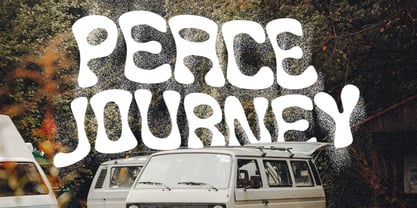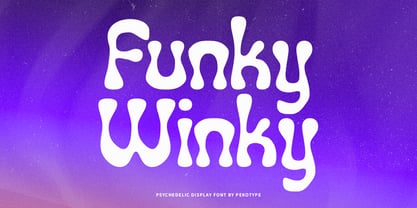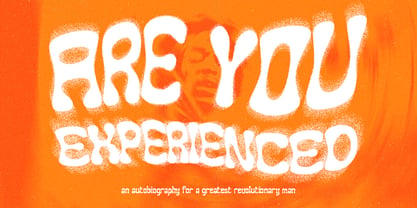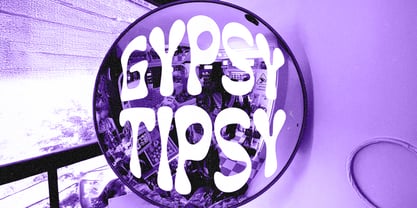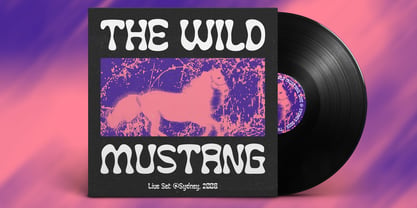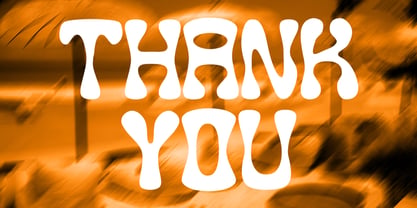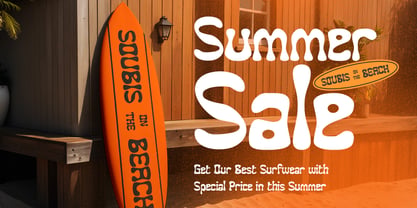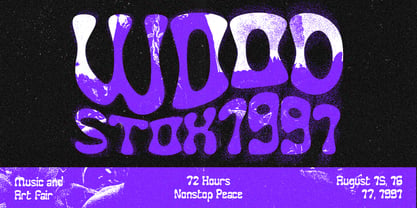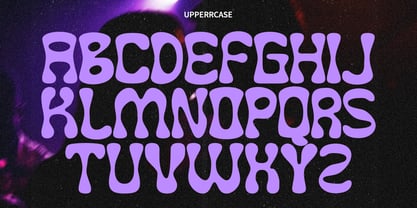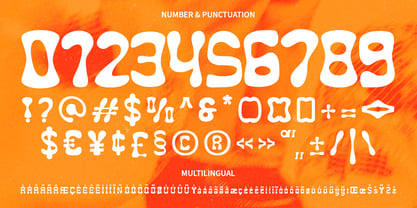
Funky Winky
von Pekotype
Die Schriftfamilie Funky Winky wurde von Galang Bryan entworfen und von Pekotype veröffentlicht. Funky Winky enthält 1 Stile. Mehr über diese Familie
FUNKY WINKY is a bold and playful psychedelic display font with a groovy retro vibe. Its unique shapes and slightly condensed style make it perfect for logos, posters, music events, social media, merchandise, and eye-catching branding. Designed to stand out, FUNKY WINKY brings fun, energy, and personality to any project, whether you’re going for a 70s-inspired look or a fresh modern design.
Designer: Galang Bryan
Foundry: Pekotype